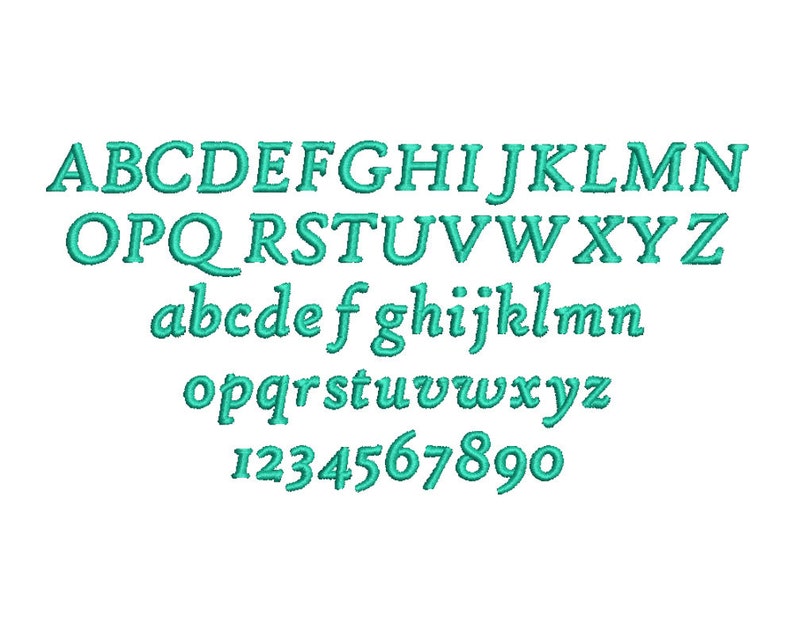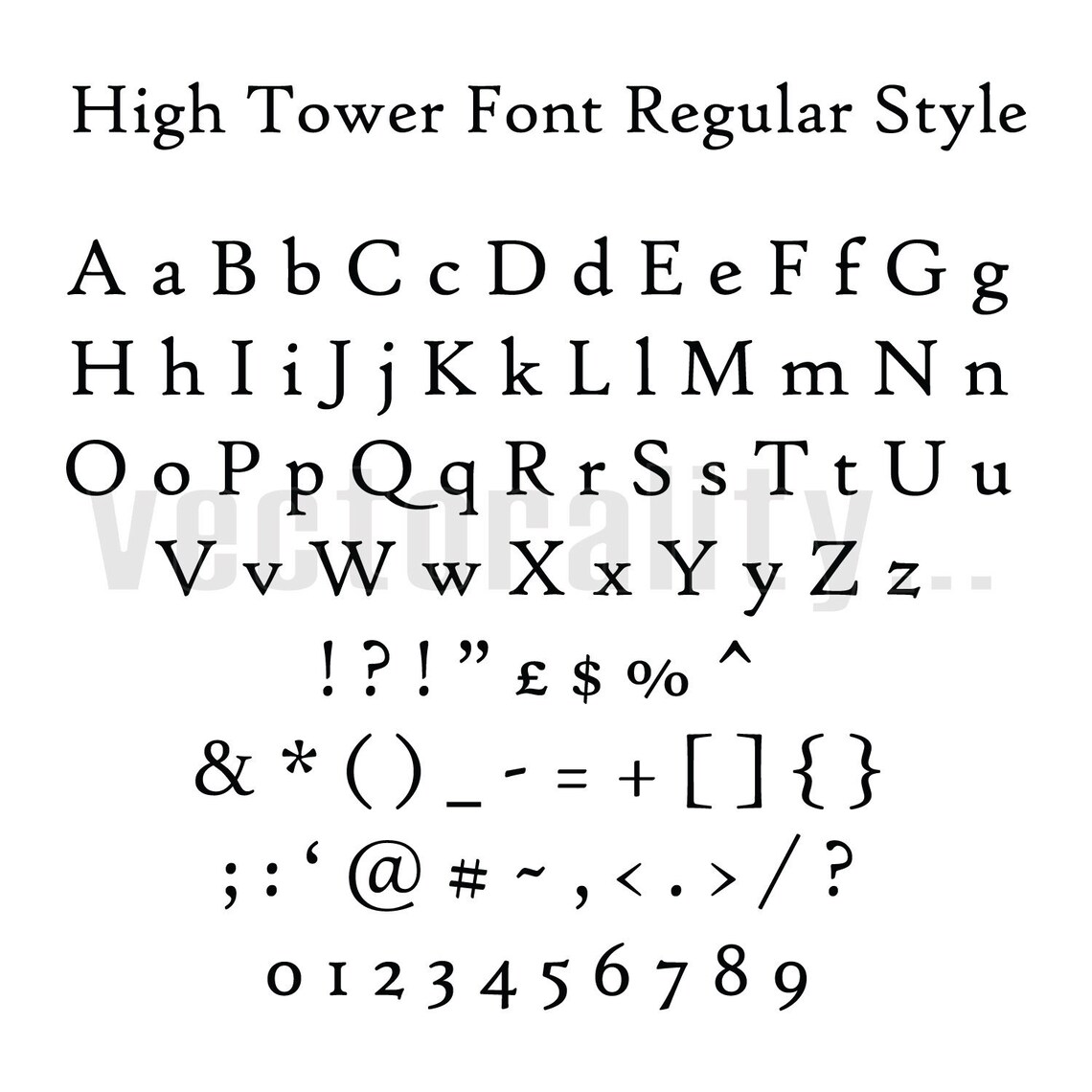
High Tower Font
High Tower Font - Download hightower text roman for free. Hightower is a soft and inky take on the “venetian” genre of text faces, which began with nicholas jenson’s roman of 1470. View sample text, character map, user rating and review for hightower text roman. Discover the free high tower text font at free font download ! Installable on pc, mac, linux, ios, and android platforms.